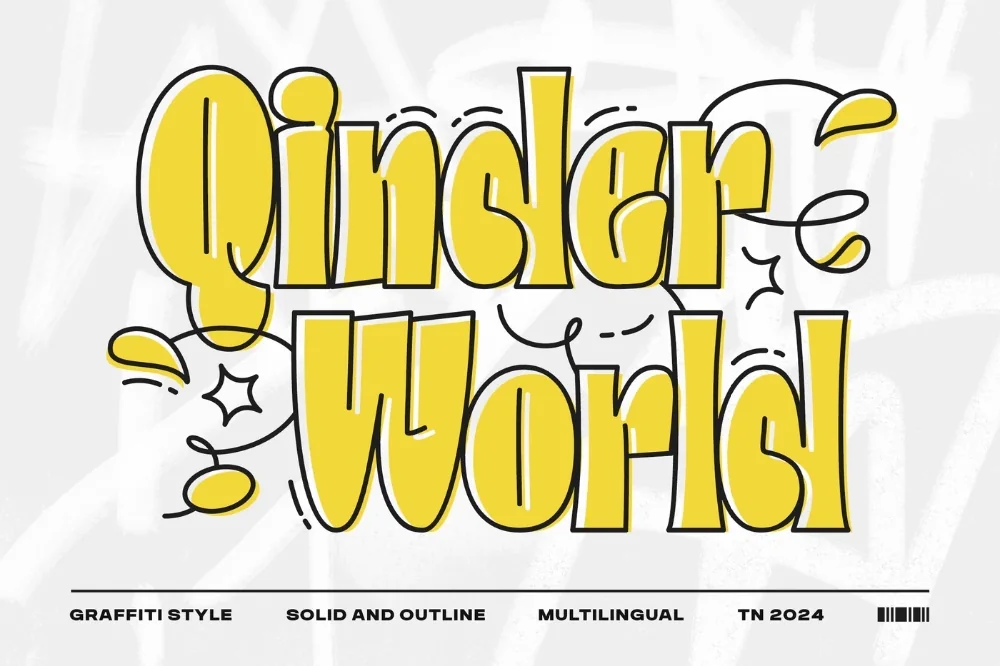
Underground World Graffiti Font
A underground graffiti font lives or dies on how it behaves at real sizes, and this one has been tested at both extremes. Dense, layered shapes with a heavy underground feel. Dark, serious, and built for late-night subject matter.
Letters overlap generously and carry interior detail lines that suggest depth, which reads as complexity even in a single colour. Extra letter spacing helps long words breathe.
Suits club night flyers, mixtape covers, streetwear labels, and dark-themed poster art.
It reverses well out of dark backgrounds, which is worth remembering if the artwork is heading for a black shirt or a night-time photograph.